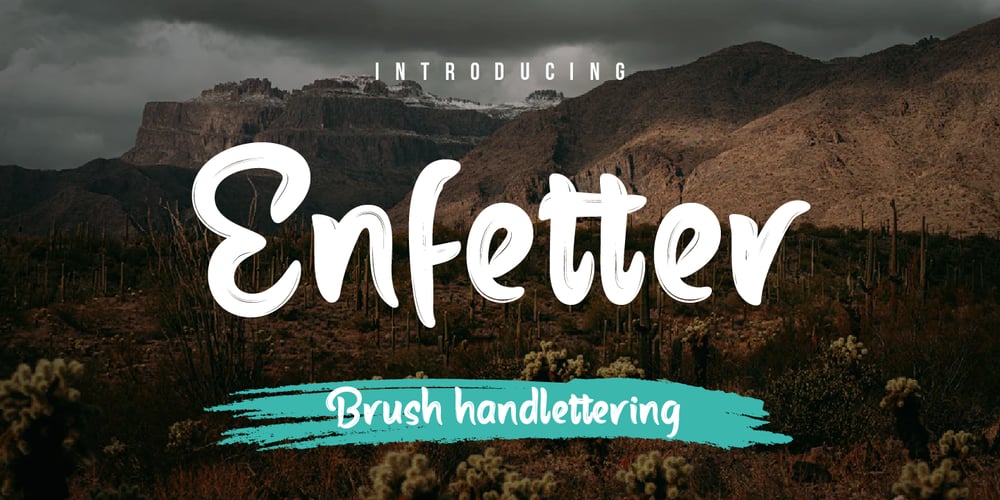
Enfetter
Enfetter font
Enfetter Font Family was designed by Lita Faolina and published by Product Type. Enfetter contains 1 styles and family package options. Enfetter is a brush handwritten font that combines style and spontaneity. Its unique, free-flowing characters are perfect for designs that require a touch of creativity and individuality. From eye-catching headlines to personal signatures, Enfetter adds a touch of personality that makes your designs stand out.